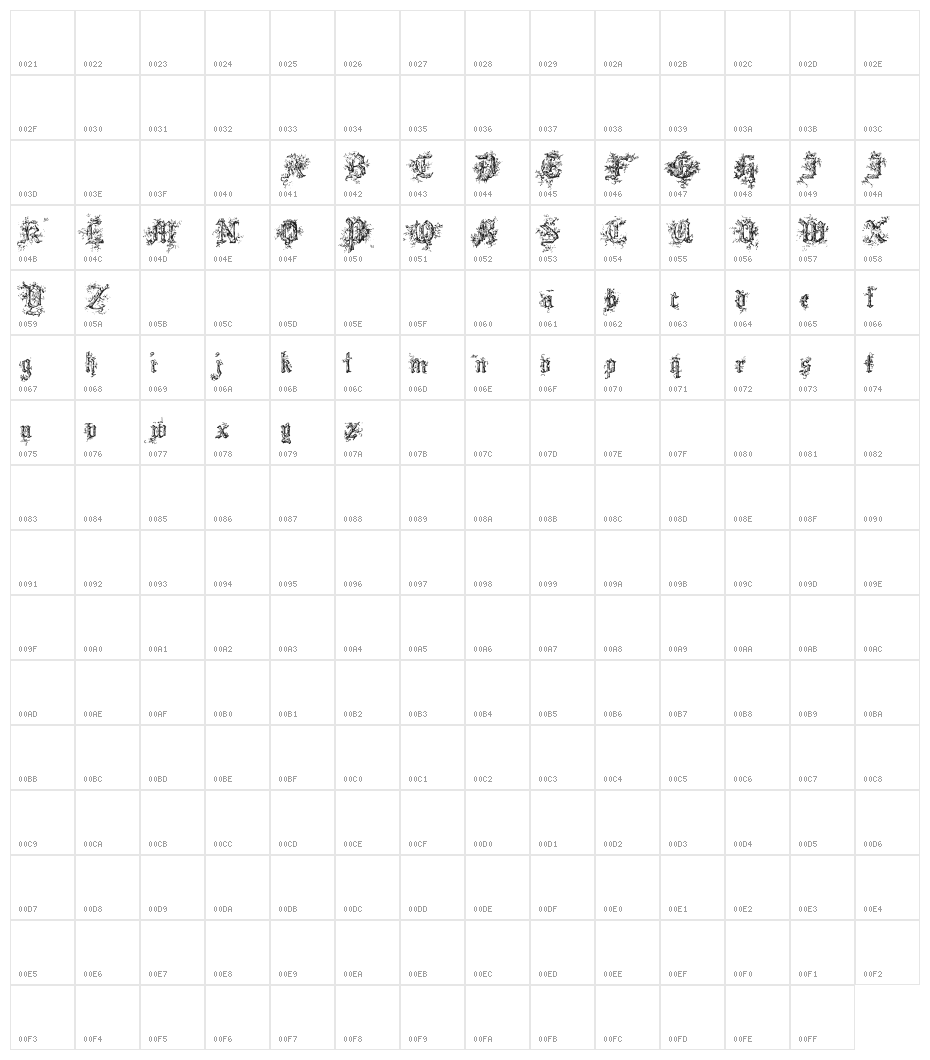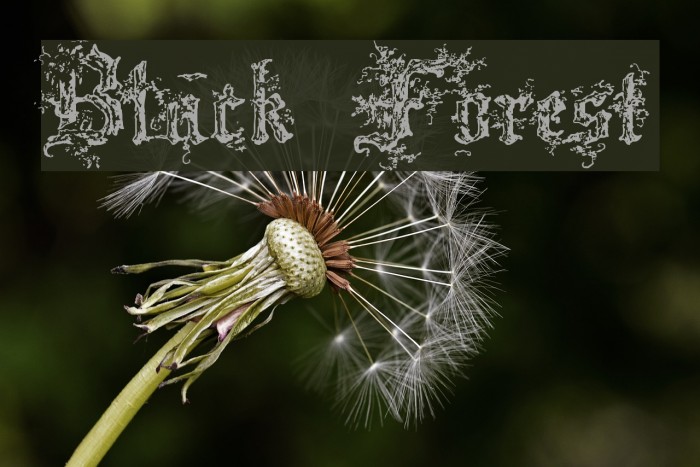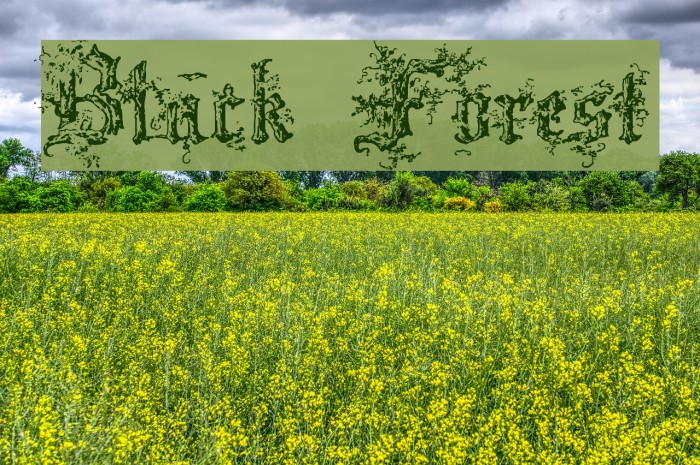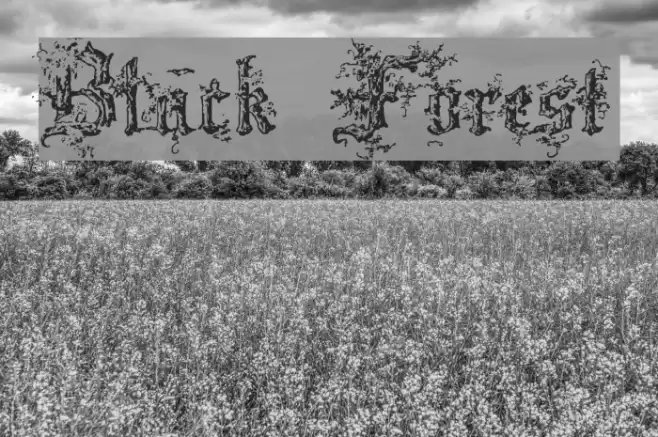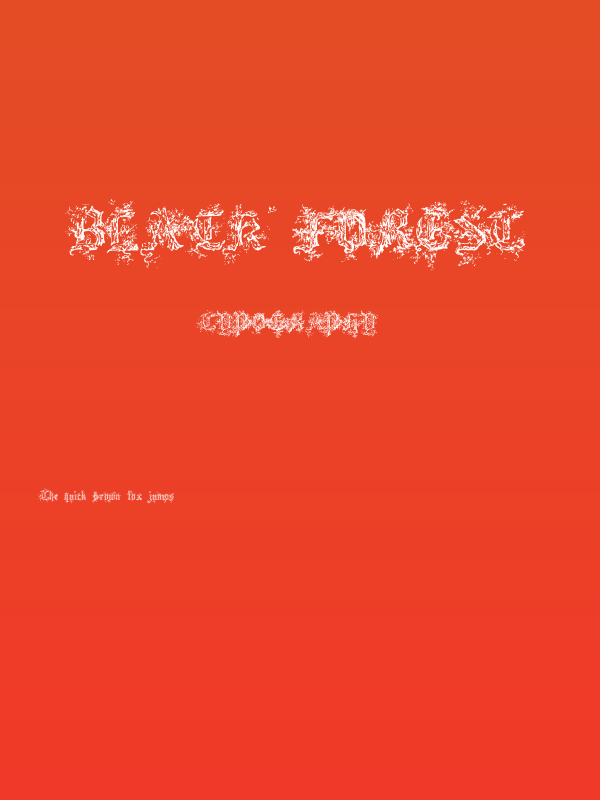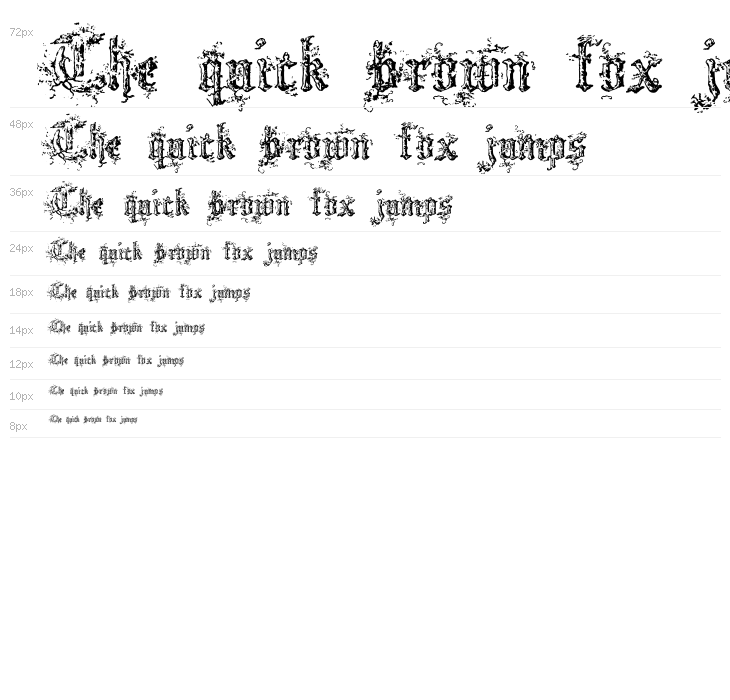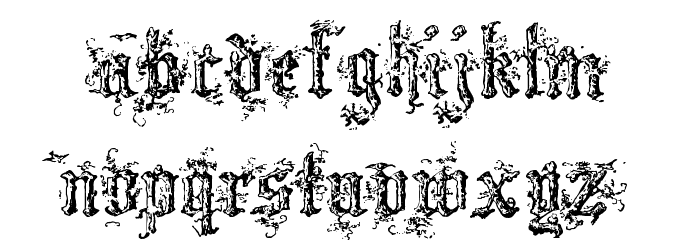
Black Forest Font
Black Forest Description
This font features an intricate and ornate design, reminiscent of traditional Blackletter styles with a modern twist. Each character is adorned with elaborate flourishes and decorative elements, creating a highly detailed and textured appearance. The strokes are bold and complex, with a high level of contrast between thick and thin lines. This gives the font a dramatic and eye-catching look, suitable for projects that require a touch of elegance and sophistication. The overall style is both vintage and decorative, making it ideal for use in designs that aim to capture a historical or gothic aesthetic.
| Overall Style | Vintage, Decorative |
| Proposed Projects | Ideal for use in wedding invitations, gothic-themed posters, book covers, and branding for luxury products. |